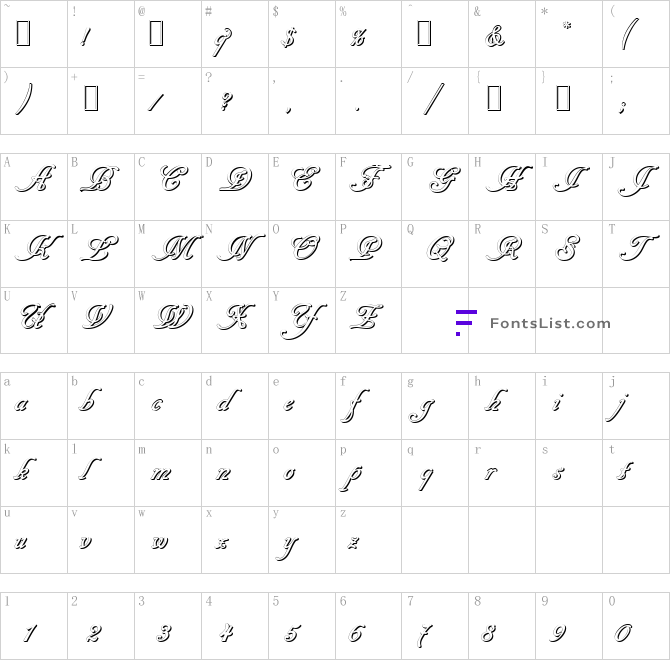
Cancellaresca-Script-Shadow.ttf is a very beautiful artistic font, Cancellaresca-Script-Shadow.ttf is widely used in the design and printing of various books and pictures,Cancellaresca-Script-Shadow.ttf has a strong visual impact,Cancellaresca-Script-Shadow.ttf is a commonly used font in newspapers, magazines and books, and is used in posters, e-commerce Poster design, store design, logo design, font design and other fields.Cancellaresca-Script-Shadow.